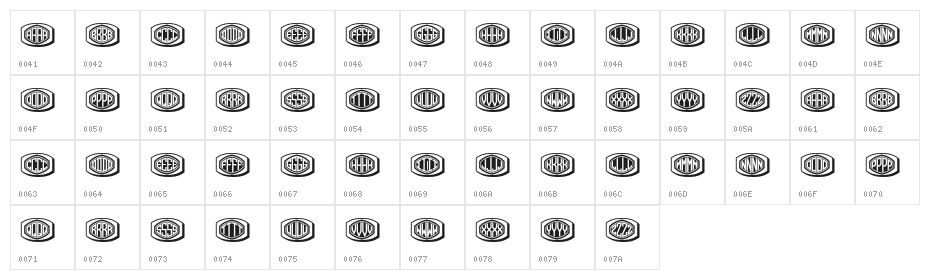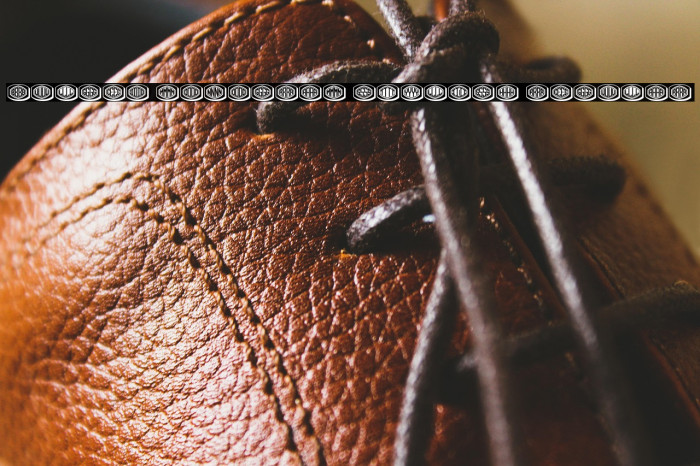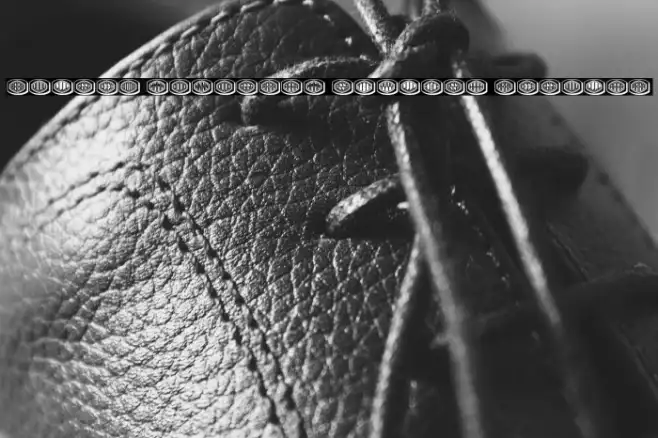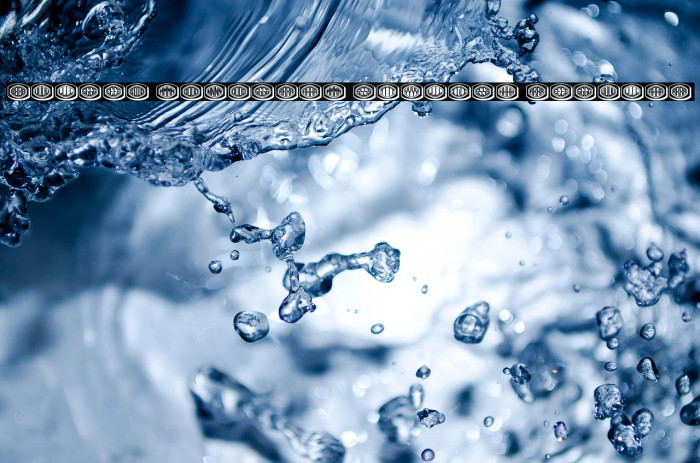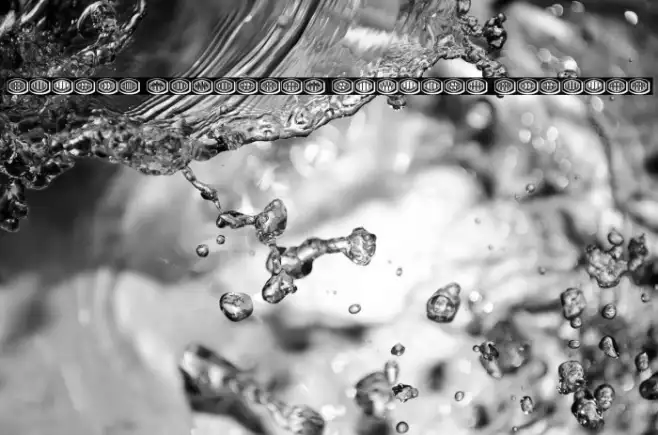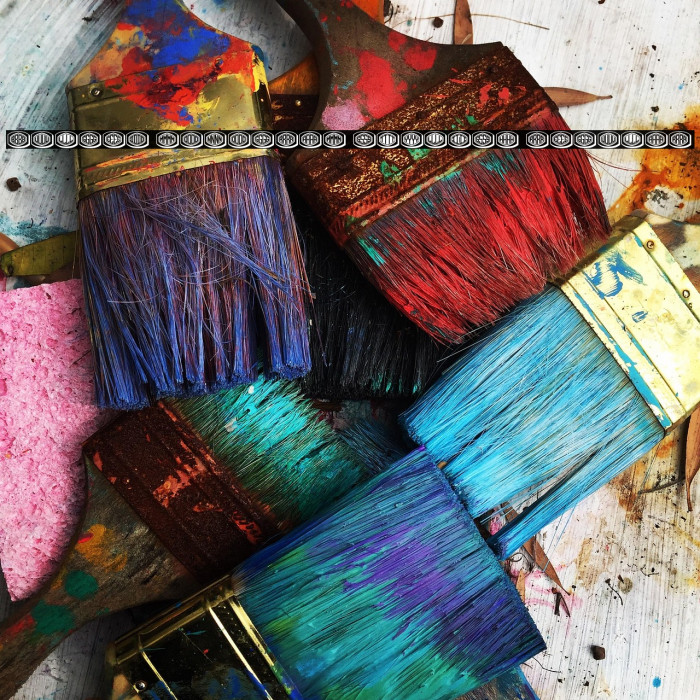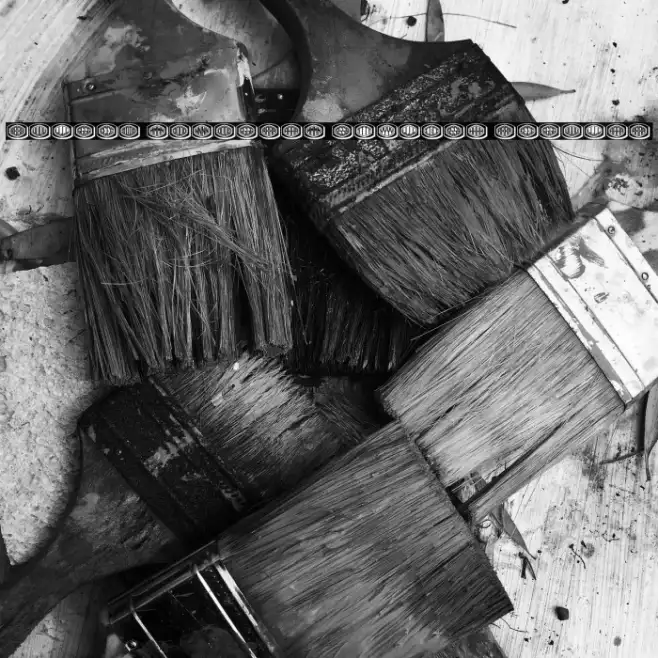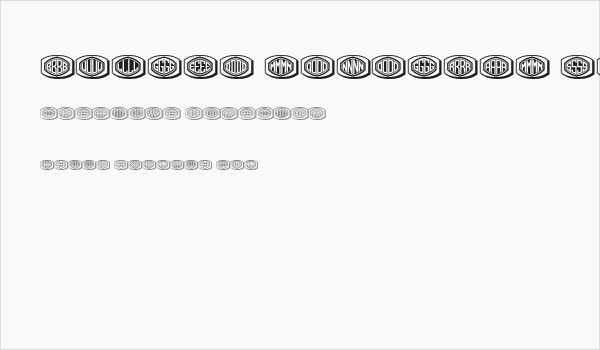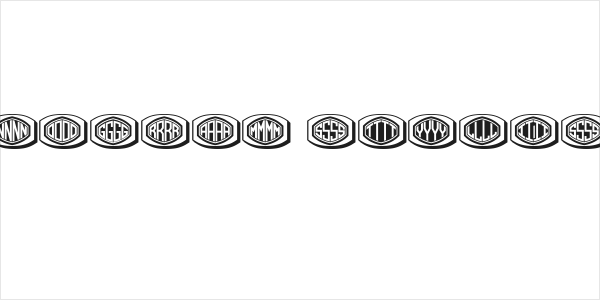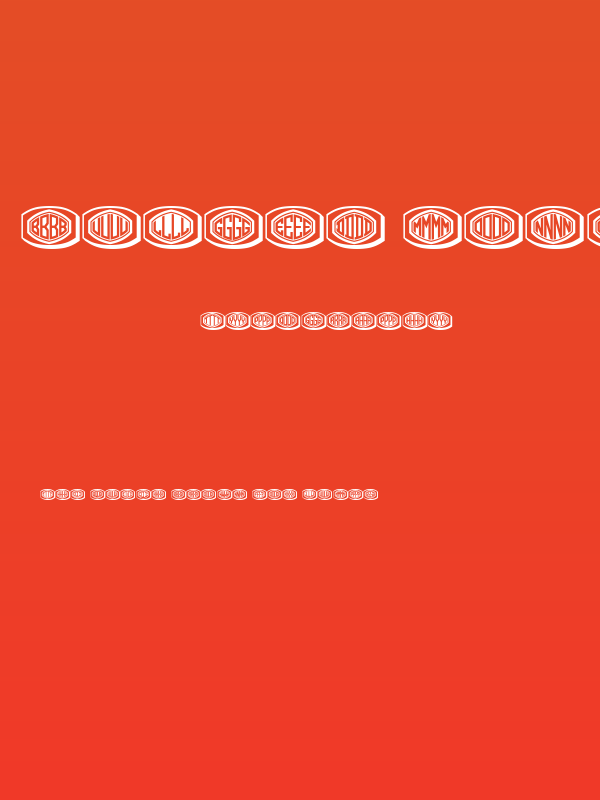
Bulged Monogram Stylish Regular Font
Bulged Monogram Stylish Regular Description
This font features a unique monogram style where each character is encapsulated within an oval shape, giving it a distinct and stylish appearance. The letters are bold and uppercase, with a consistent width and height, creating a uniform look. The design is decorative, with a slight vintage flair, making it suitable for projects that require a touch of elegance and sophistication. The characters are evenly spaced, ensuring readability while maintaining the decorative aspect of the font. This font is ideal for creating personalized monograms, logos, or any design that seeks to convey a sense of tradition and class.